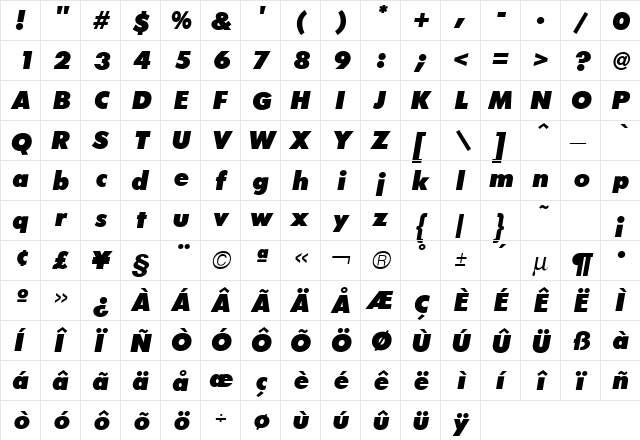
Futura ICG XBold Oblique Font Preview
Design Context for Futura ICG Typeface
Futura ICG channels digital-age aesthetics through its sharp, structured letterforms — ideal for brands that want to signal innovation. The slanted form adds forward momentum and visual energy. Its bold stroke weight gives it real presence on the page.
Pro Tip: Use Futura ICG in combination with a neutral sans for body text. Let it define the brand voice in headlines while keeping reading comfortable elsewhere.